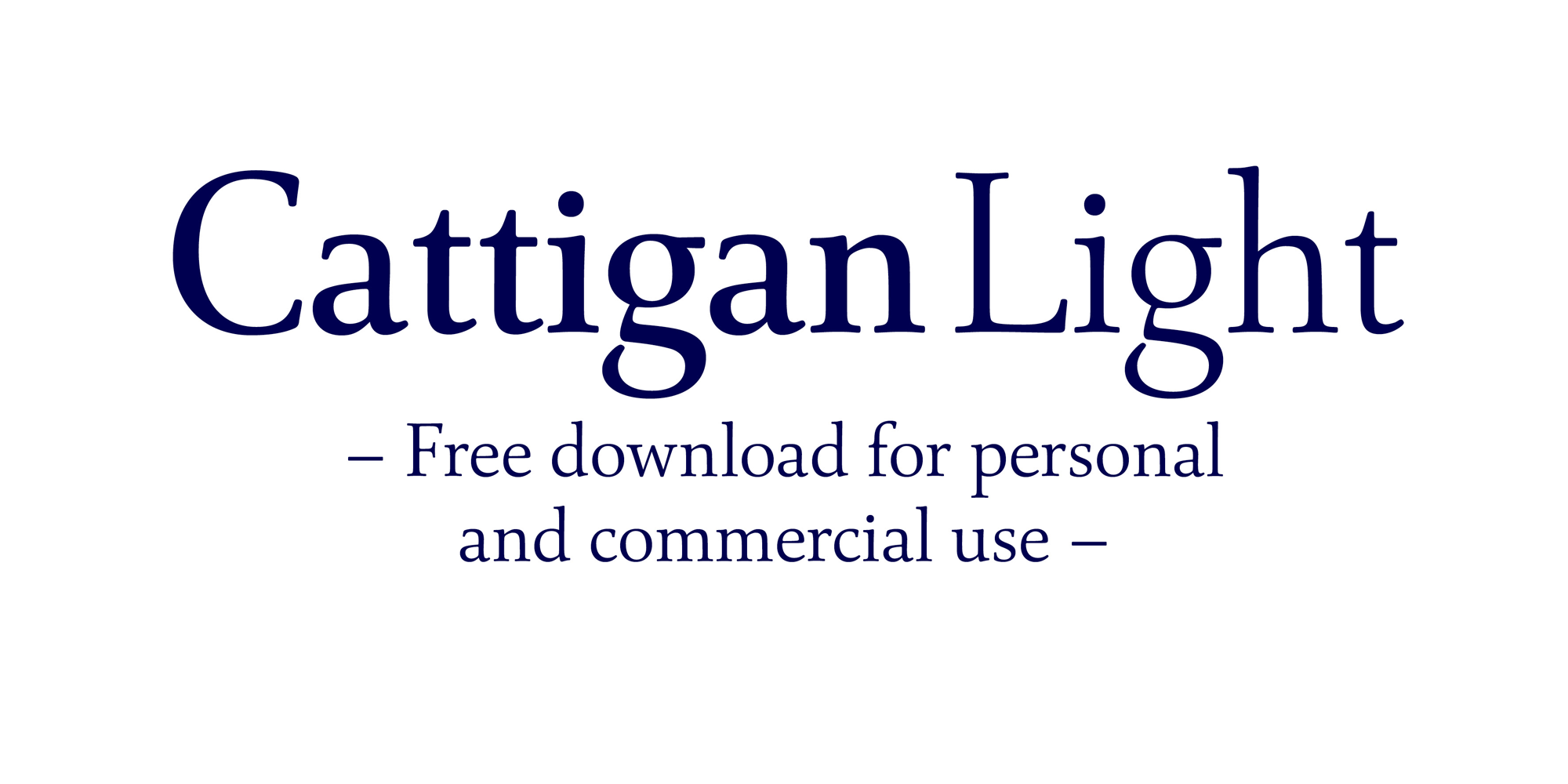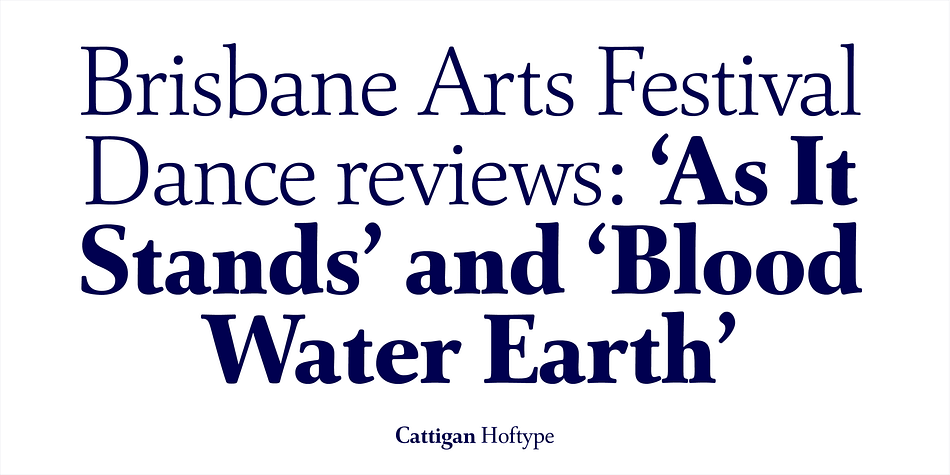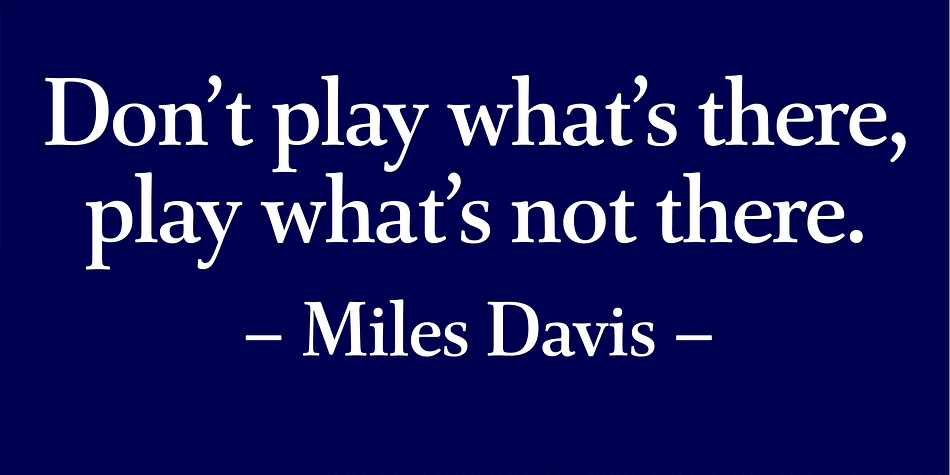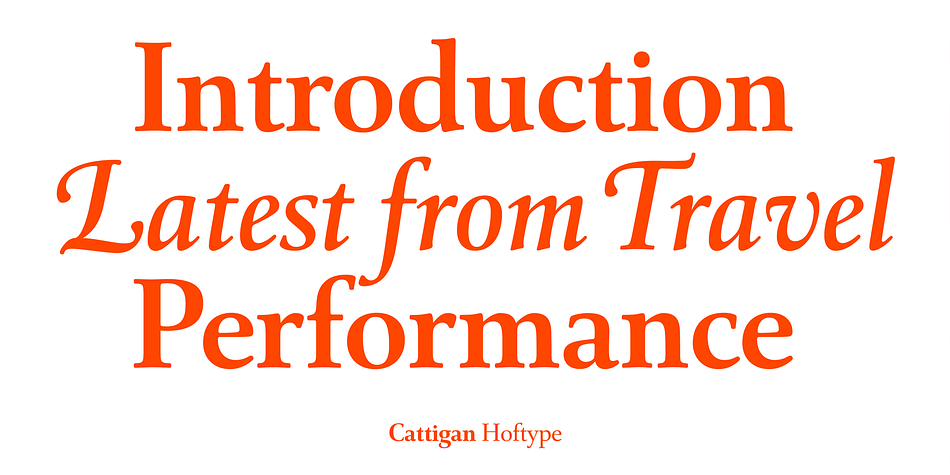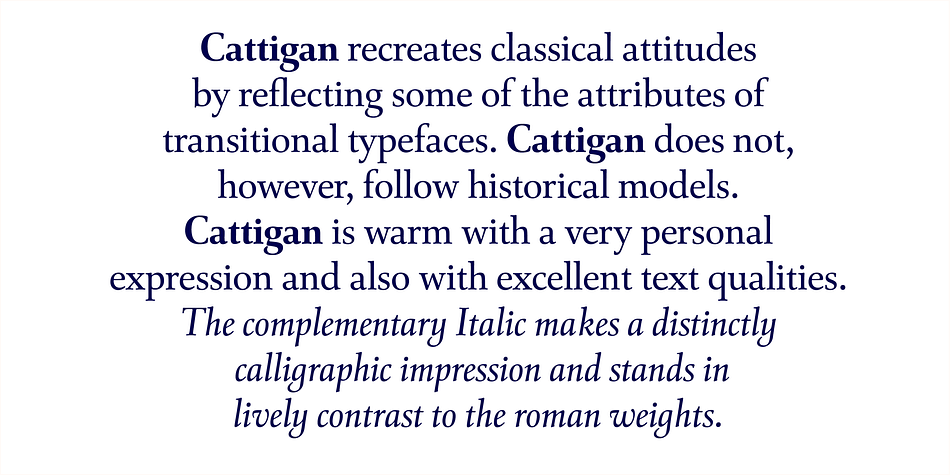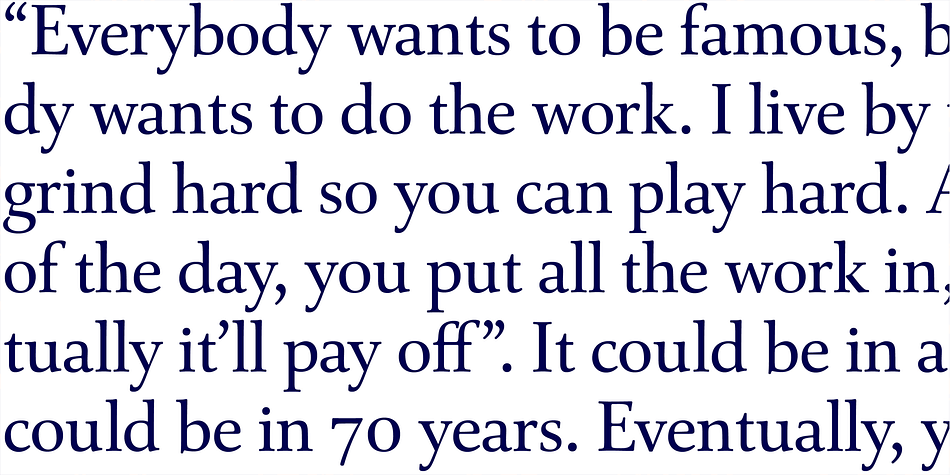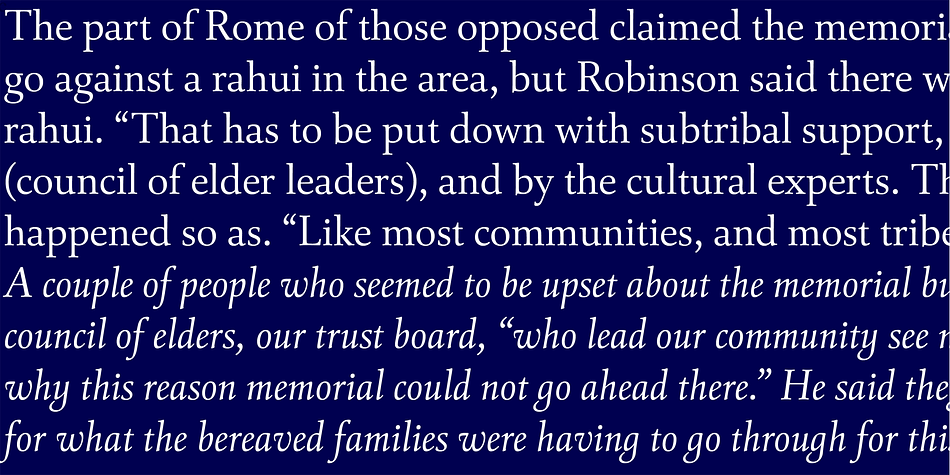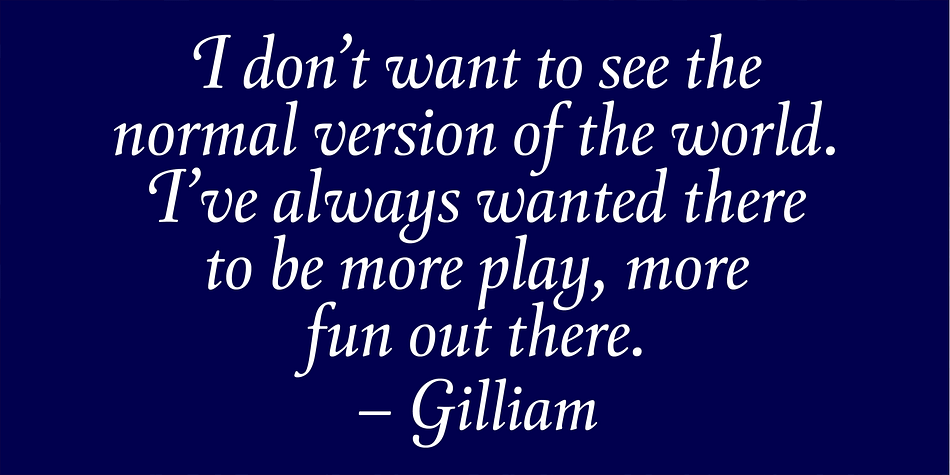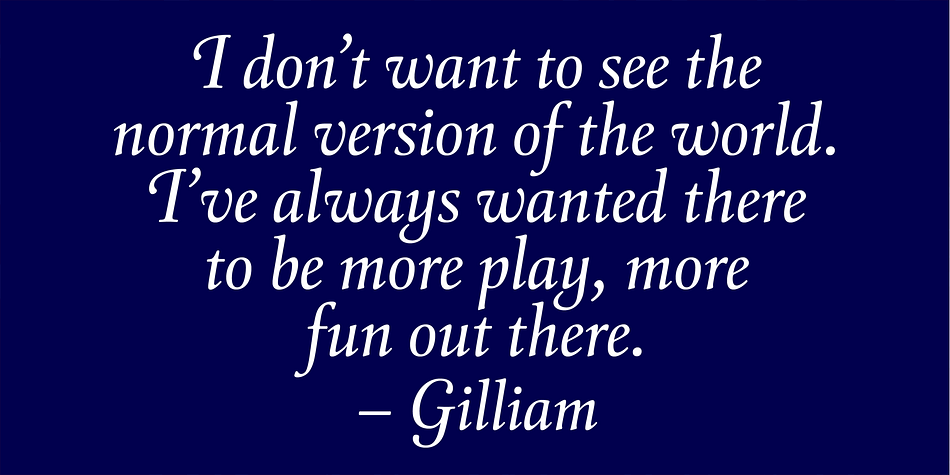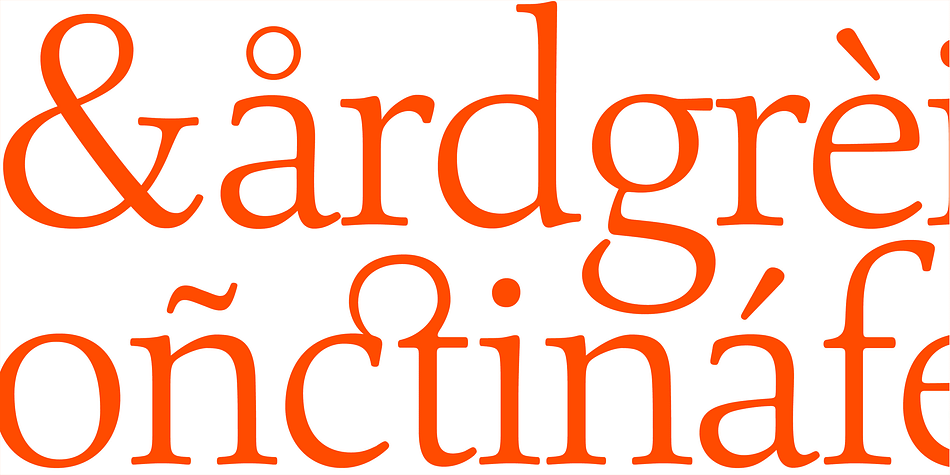
Cattigan
Designed by Dieter Hofrichter, Cattigan is a serif font family. This typeface has eighteen styles and was published by Hoftype.
Catigan recreates classical attitudesby reflecting some of the attributes of transitional typefaces. Catigan does not, however, follow historical models. Catigan is warm with a very personal expression and also with excellent text qualities. The complementary Italic makes a distinctly calligraphicimpression and stands in lively contrast to the roman weights.
All weights contain small caps, ligatures, superior characters, proportional lining figures, tabular lining figures, proportional old style figures, lining old style figures, matching currency symbols, fraction- and scientific numerals, matching arrows, and alternate characters.
All Italic weights contain swash capitals.